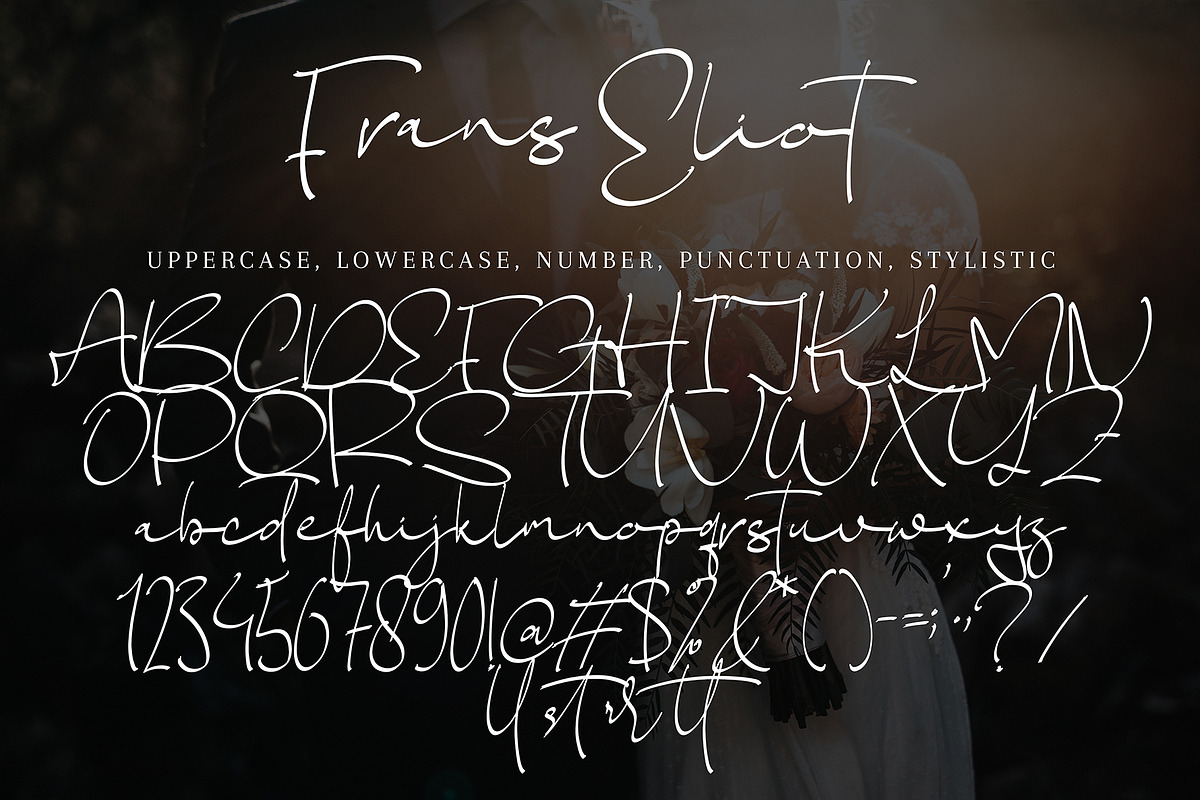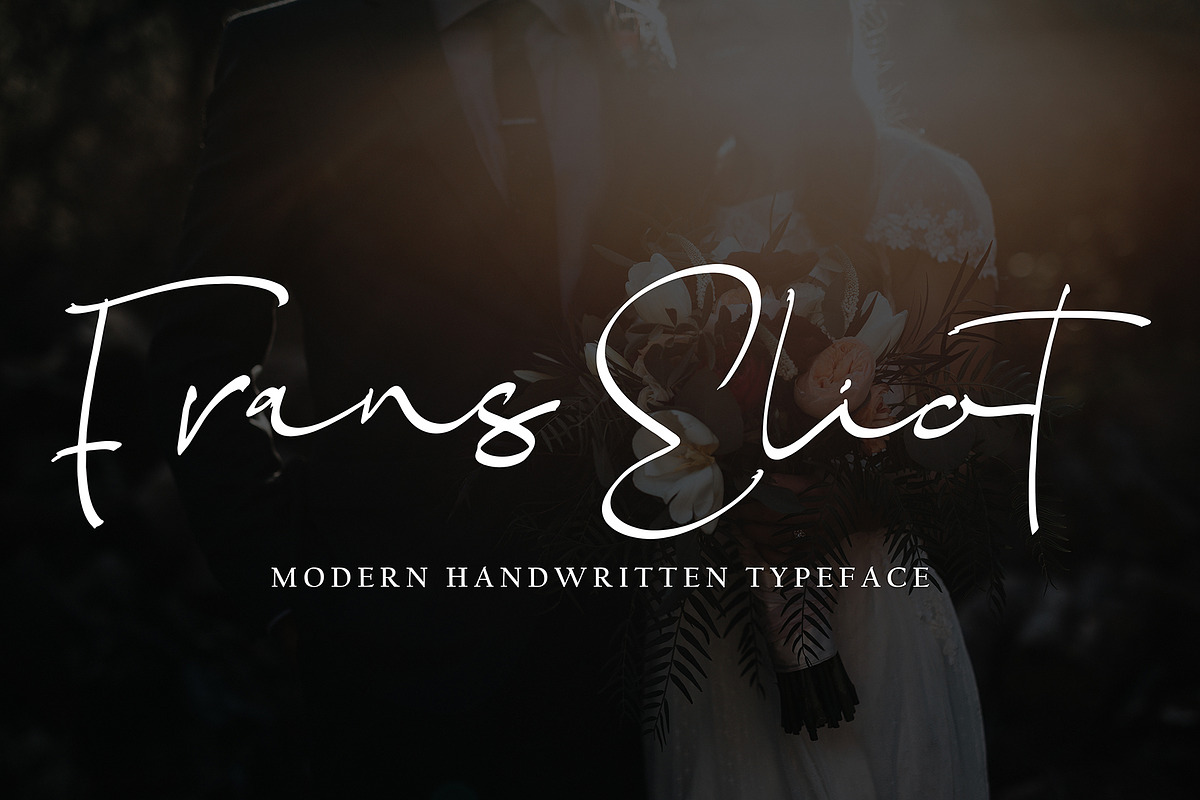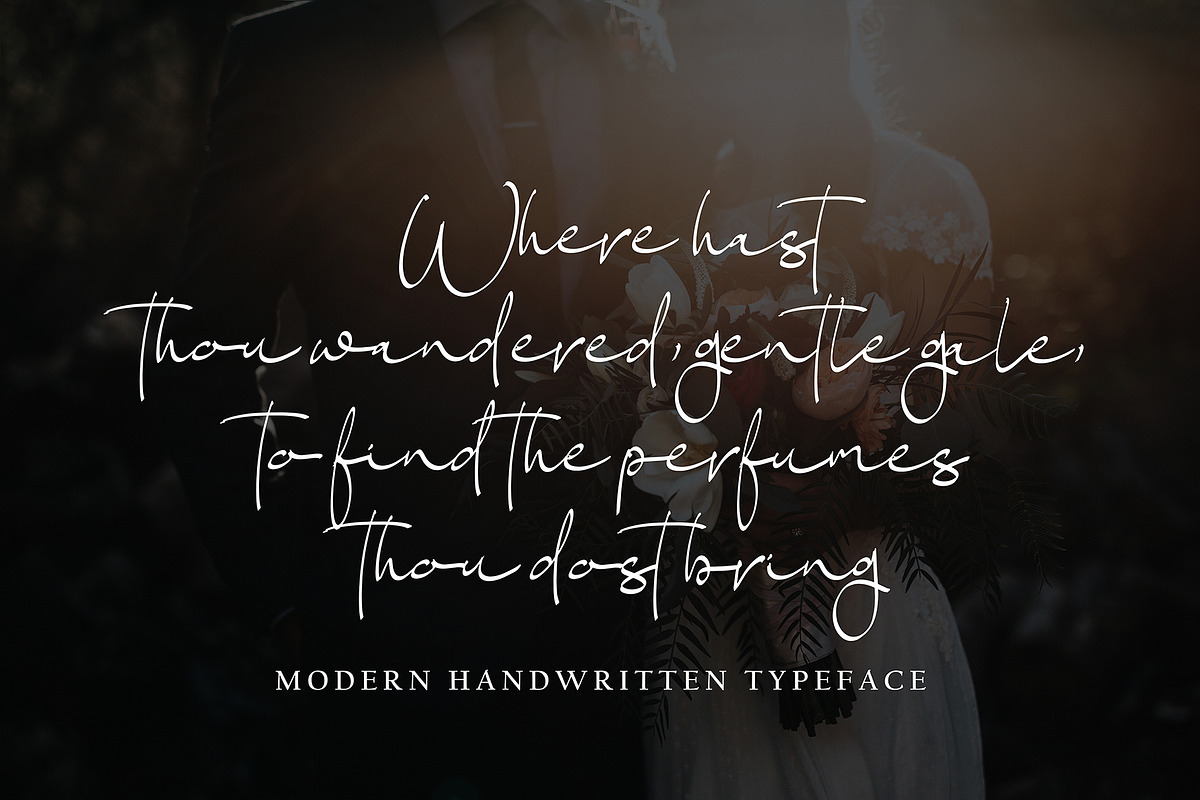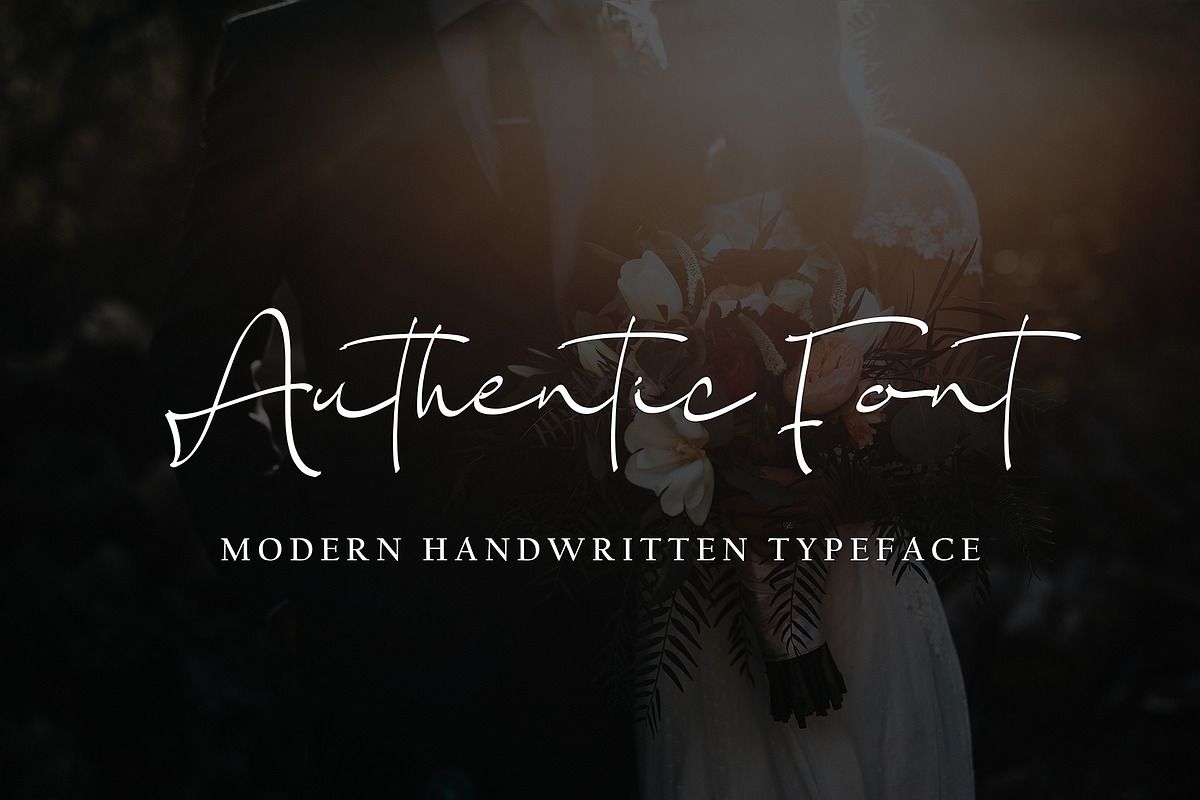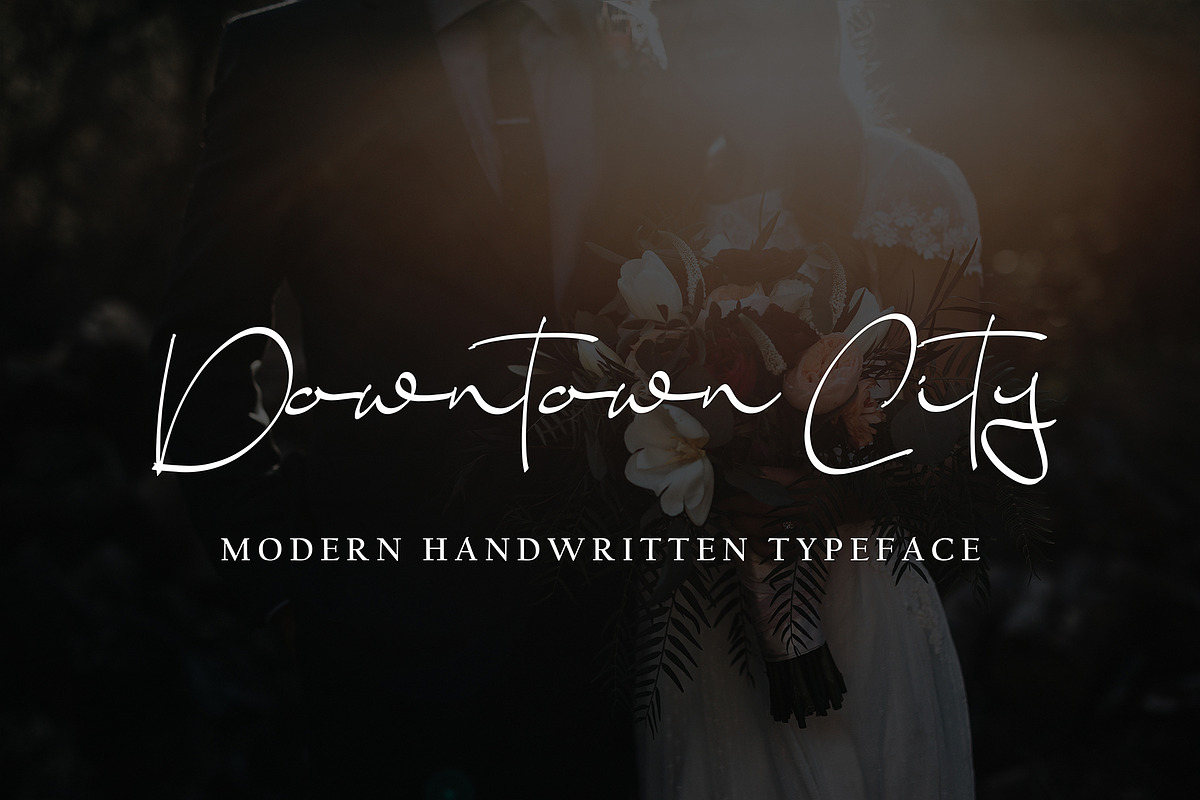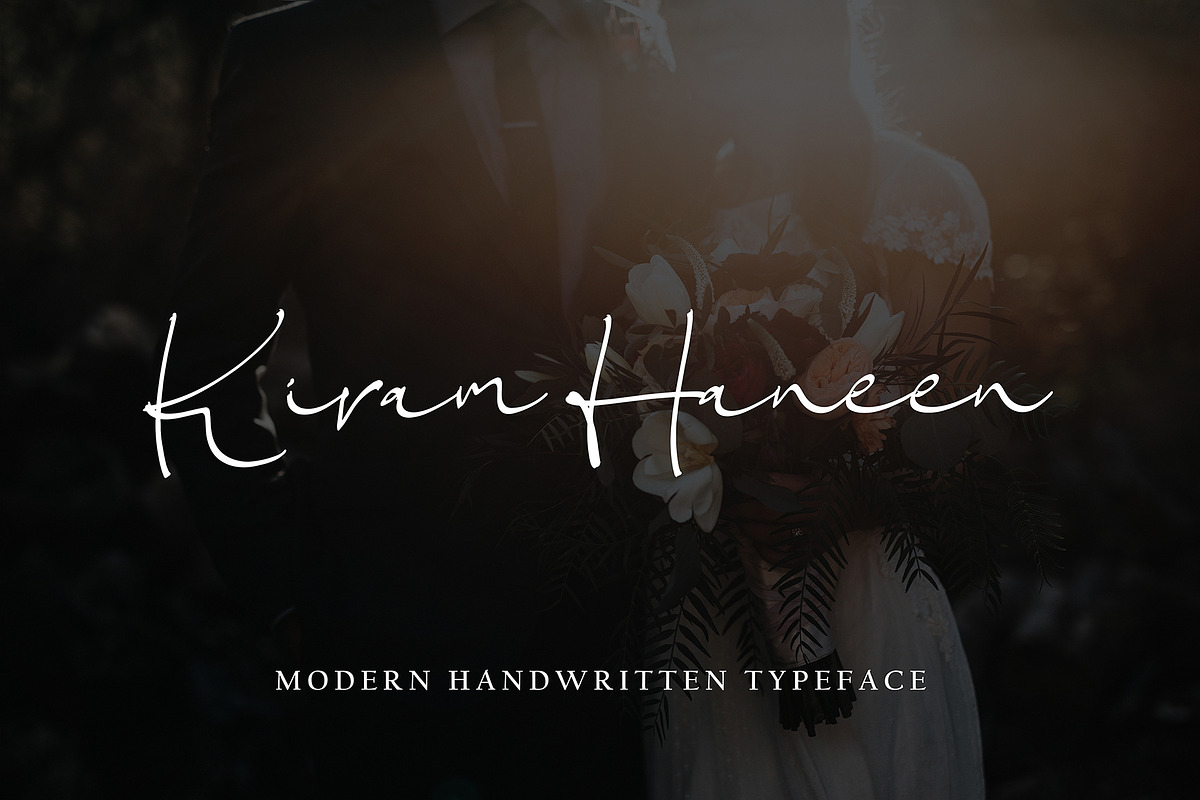
Frans Eliot
Frans Eliot with new style, this font will perfect for many different project ex: quotes, logo, blog header, poster, banding, letter, invitation, stationery, etc...